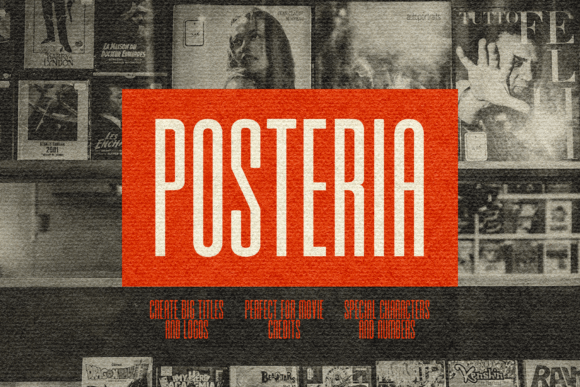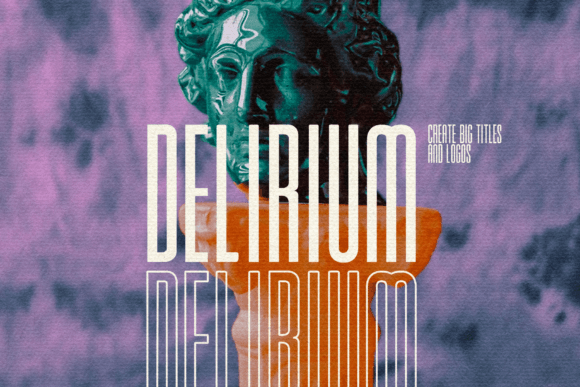
Posteria Font
About the Posteria Font
The Posteria Font offers a perfect balance of form and function for your design needs. Welcome to “Posteria,” a sans-serif font inspired by movies.
Create your movie poster just like Hollywood in seconds using this brand-new all-caps font!
With this font, you’ll be able to create a stylish title for your designs.
Posteria’s strong, bold forms make it ideal for headlines, posters, and short impactful branding statements. Its all-caps design lends itself well to titles and concise messaging, creating a powerful visual presence. However, its condensed letterforms and limited character set make it unsuitable for body text or UI elements requiring extensive readability.
The font’s inherently cinematic personality pairs well with both classic and modern styles. Consider pairing Posteria with a clean sans-serif like Helvetica for a balanced, contemporary feel, or a sophisticated serif such as Garamond for a touch of timeless elegance. A playful script font could also add a contrasting yet complementary layer, depending on the project’s specific needs.
Posteria projects a confident, modern, and slightly dramatic feel, perfect for projects aiming for a bold and memorable statement. Think action movies, high-end product launches, or brands focused on strong visual identity.
Posteria Font Usage Examples
Posteria Font Example